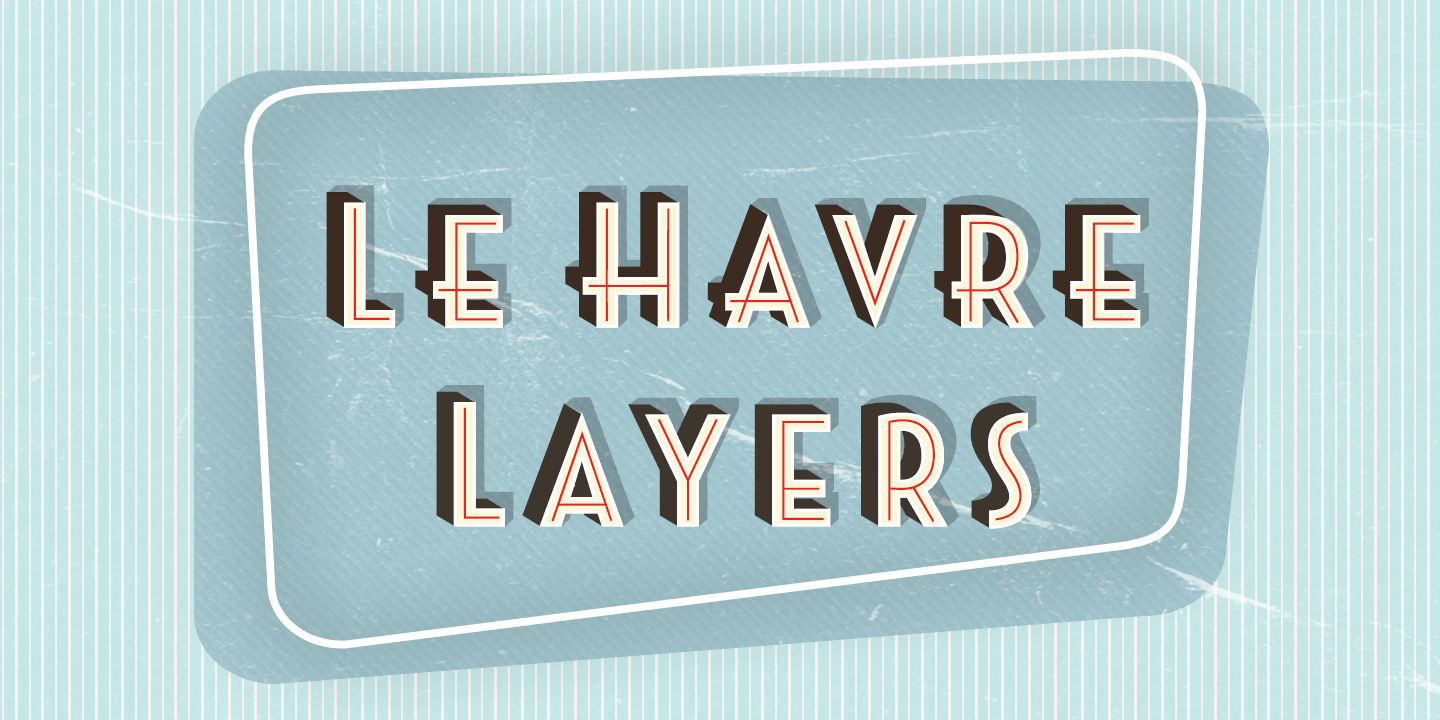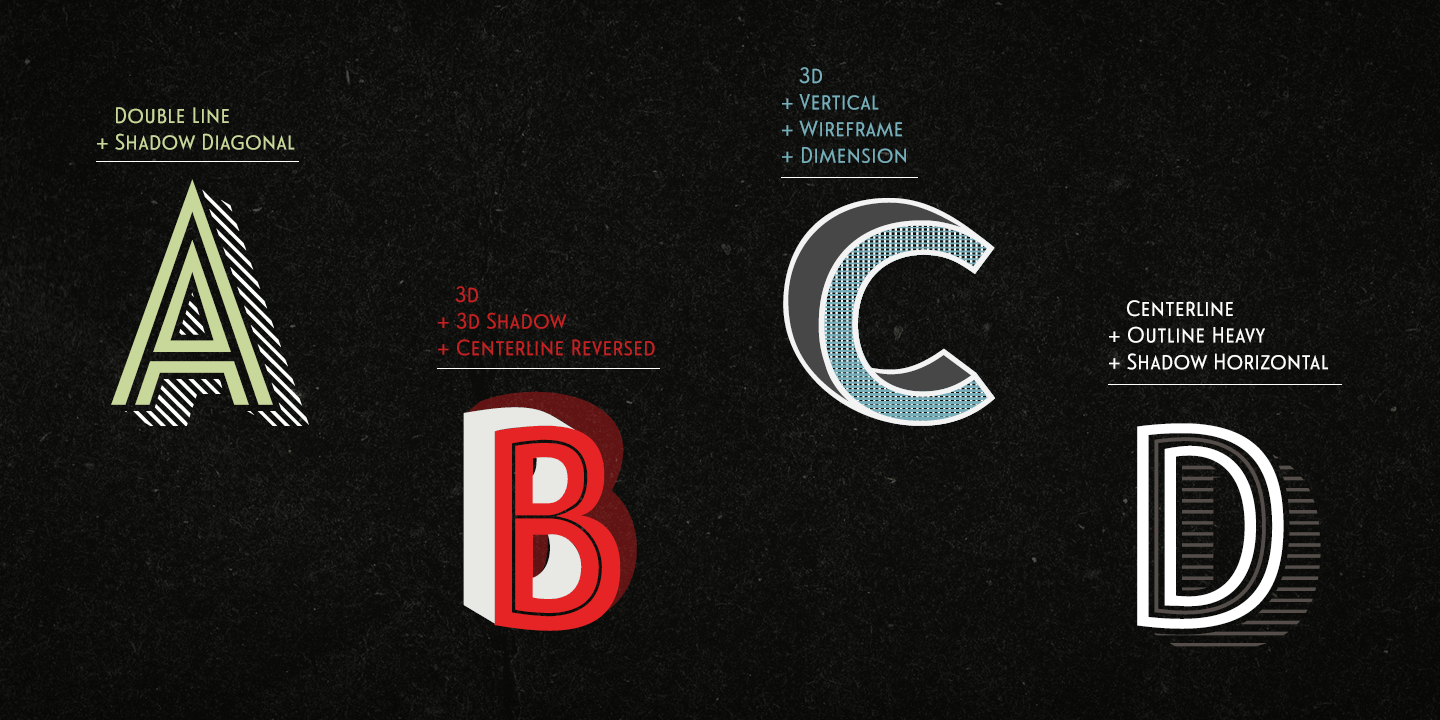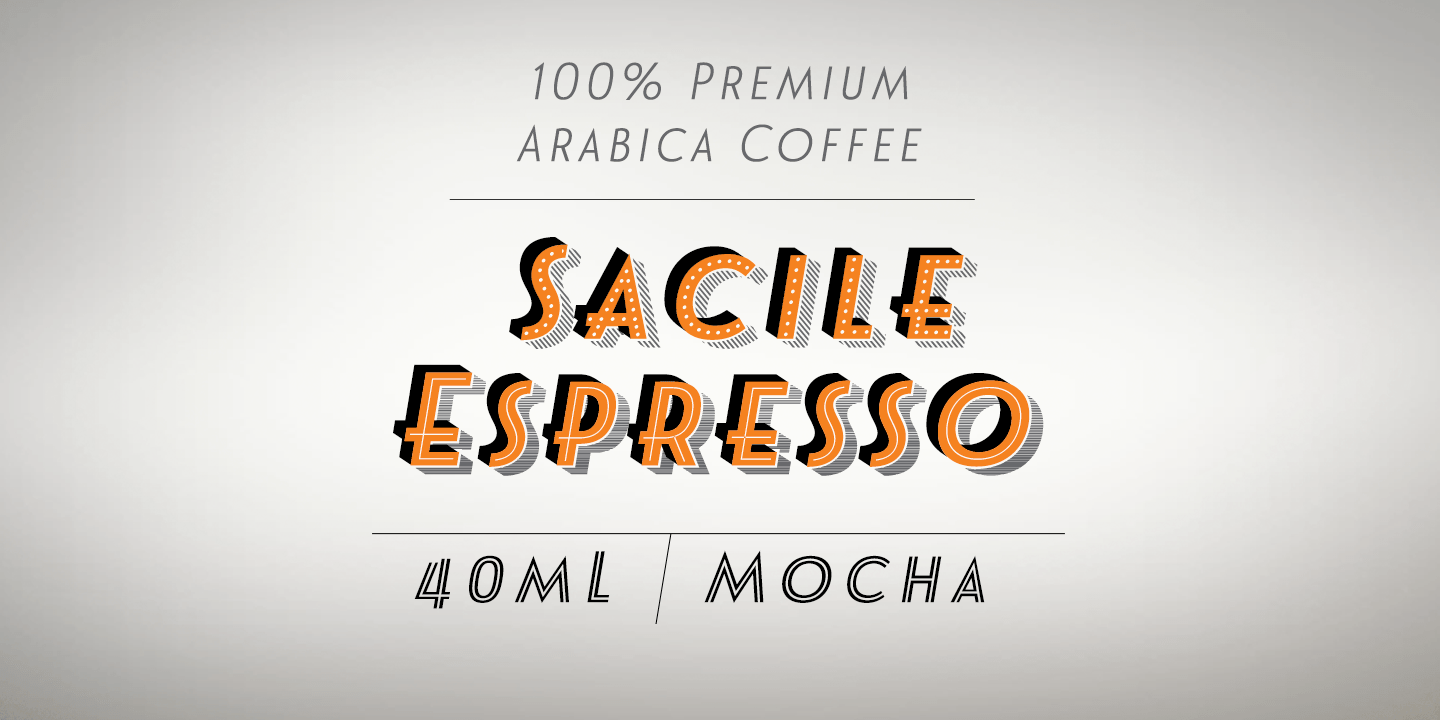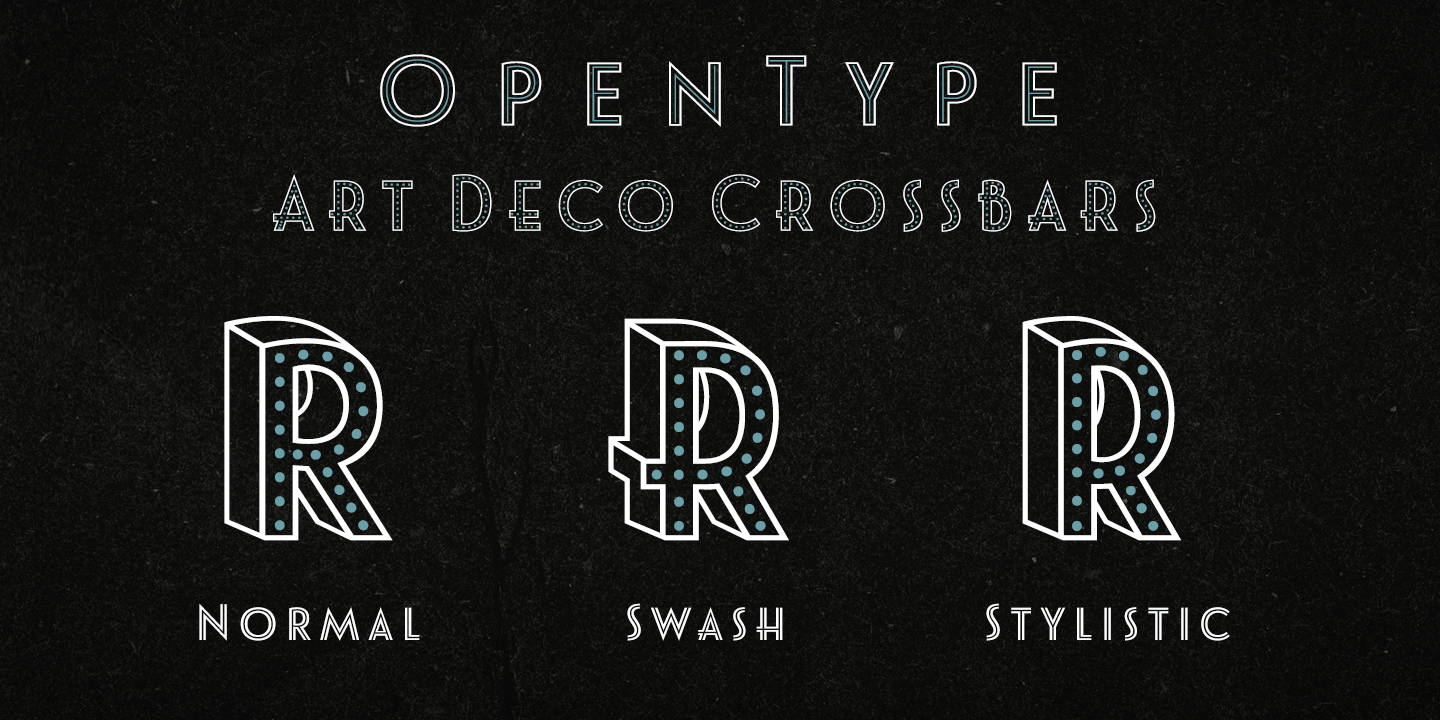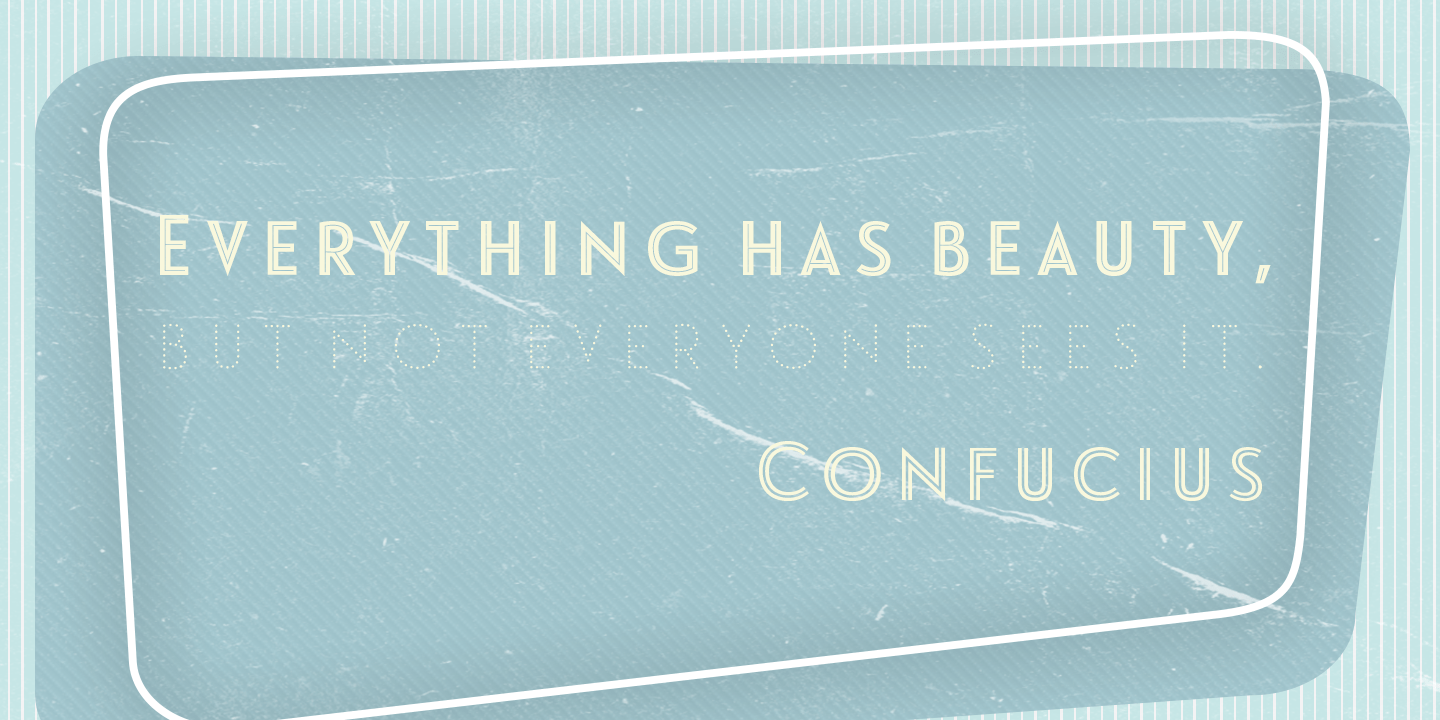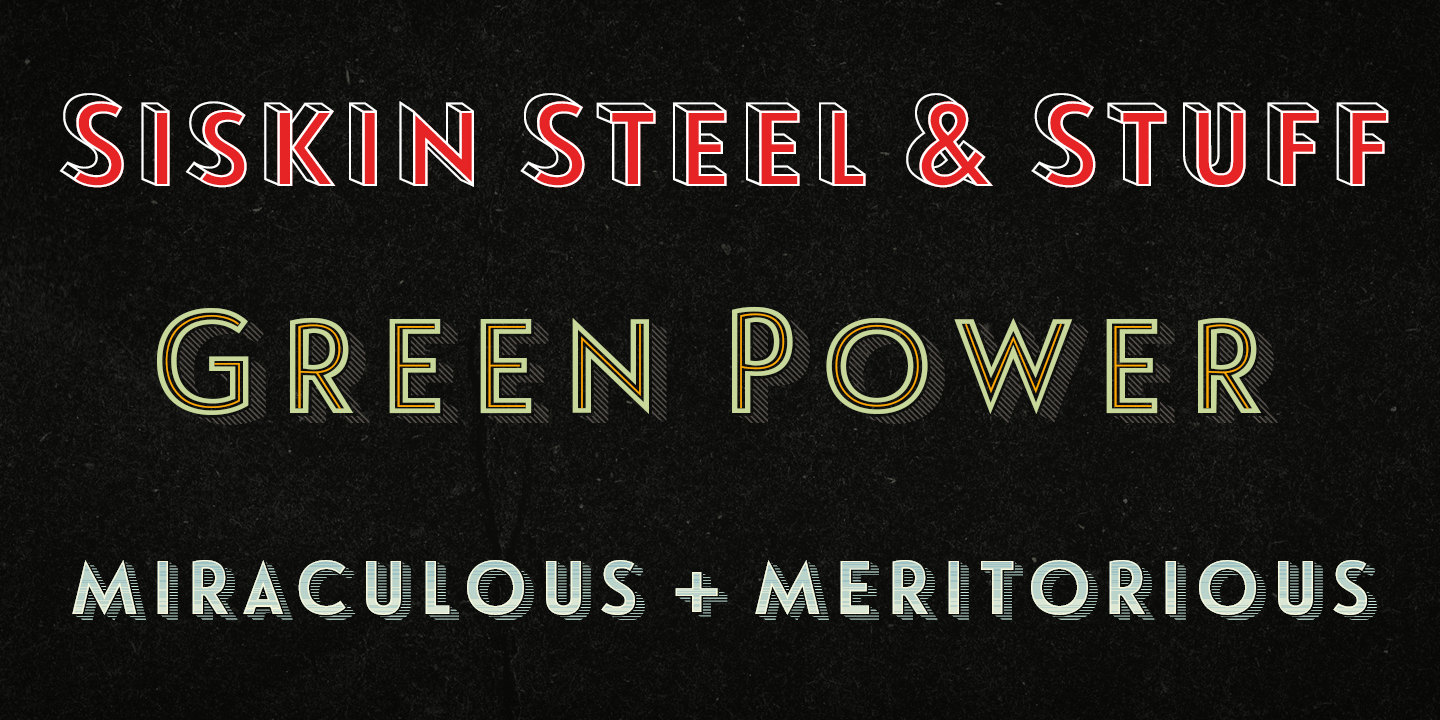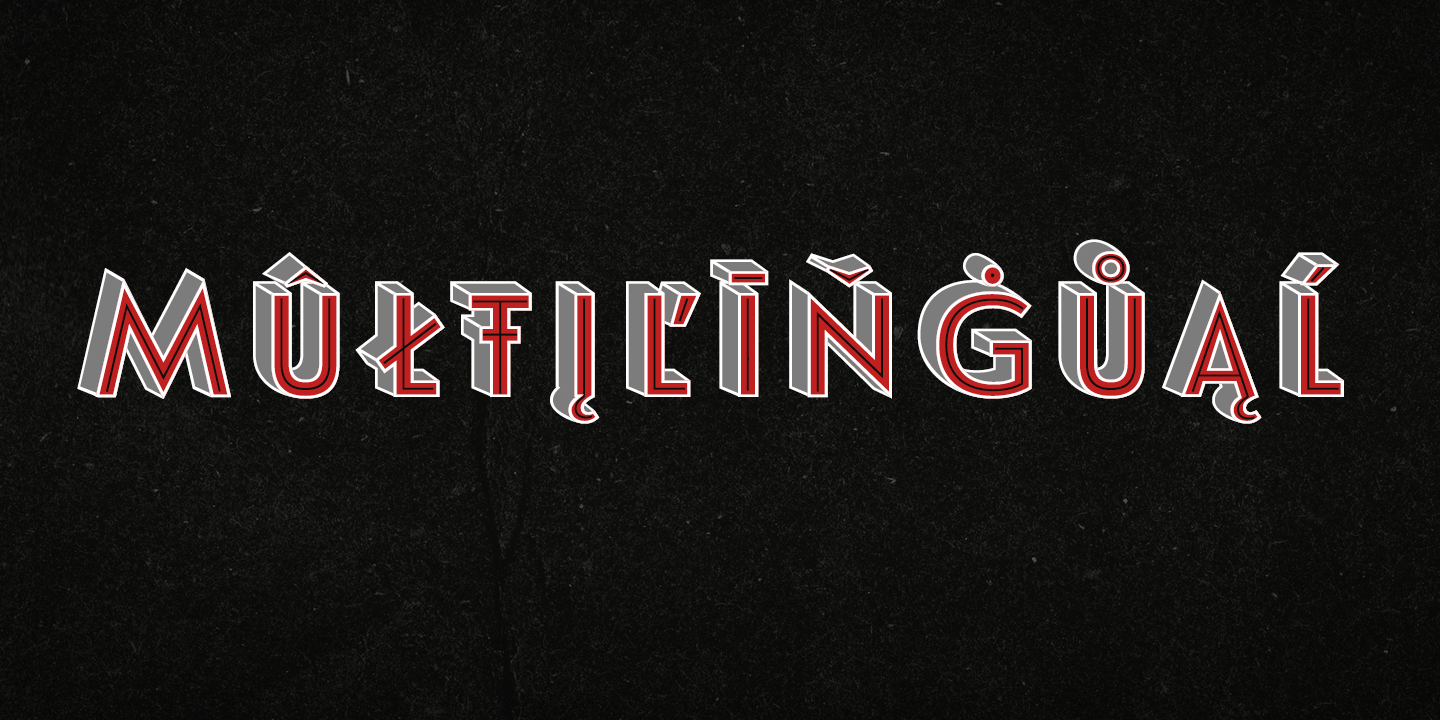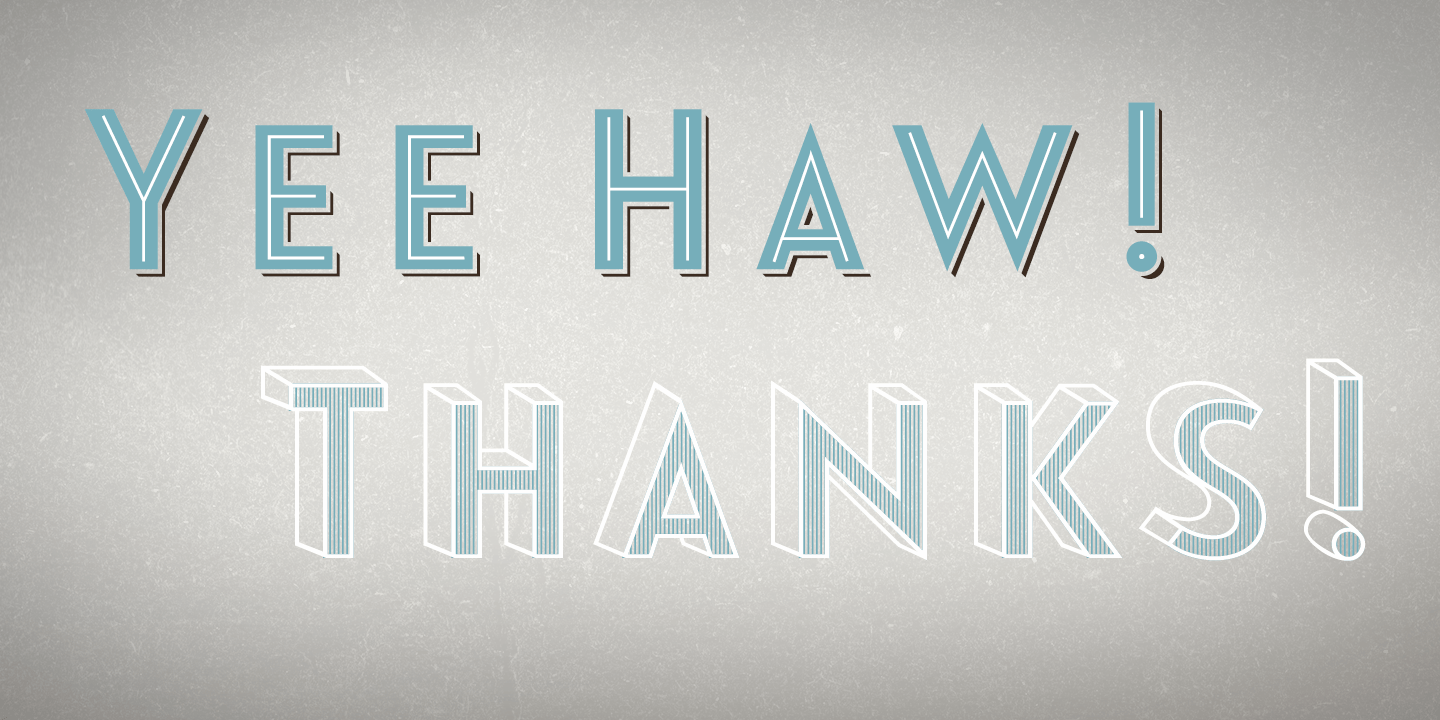
Le Havre Layers
With this charming new layered typeface, the possibilities are as endless as your vision behind them. Accomplish the effect you searching for by layering these exceptional fonts and altering opacity and color for a unique custom appearance that yells ?hello there!?
Play around a bit with the potential of Le Havre Layers. Build effects which include realistic 3D appearances reminiscent of the storefronts of old and adding centerlines, dotted centerlines, and shadow variations. Inspired by the affable appearance of vintage signage from the 1930s to the 1960s, Le Havre Layers spacing is altered from Le Havre Titling's to accommodate shadows and other options properly. With its generous width it sends a message of refinement and grace. The geometric and art deco curves are a beautiful addition to your work.
Mix an' match it together with the other members of the Le Havre Hyperfamily. There are many amazing design solutions for you to discover. See what you could build with Le Havre Layers!